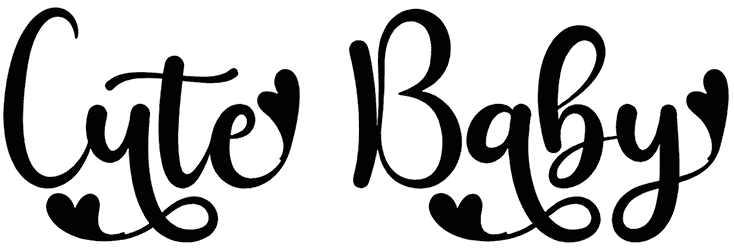
For making Valentine’s Day posters, romantic text, or even printing on girly apparel, a Valentine font with a natural artistic touch is needed to sweeten your typography through its fancy and intimate design.
Today, Boomers Love comes with a romantic heart tone to make your writing design cozier. This fancy holiday font covers a mixture of capital and lowercase letters that make every effort to bring satisfying writing results.